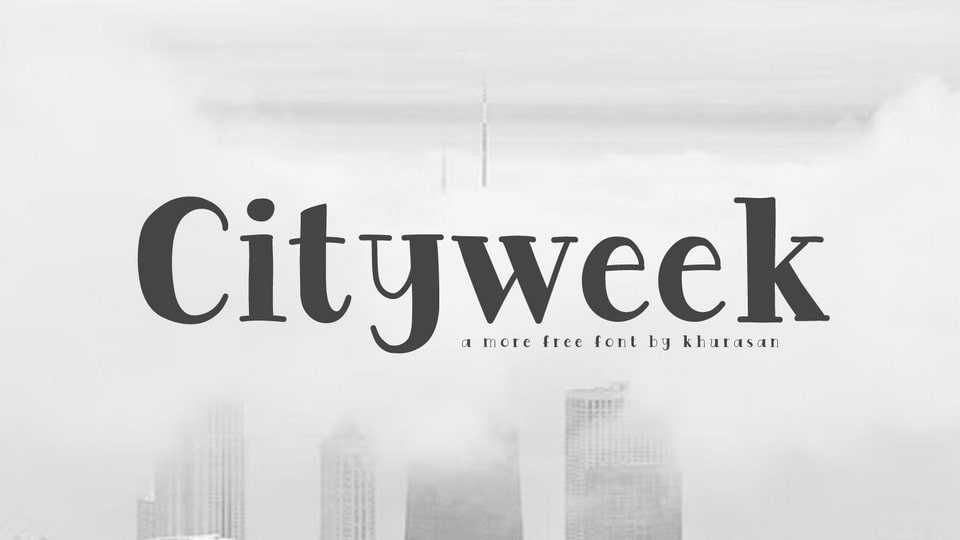
Download Cityweek font, a hand-drawn serif typeface that celebrates the art of contrast and creative expression. Each letter is a testament to the marriage of precise serifs and expressive strokes, resulting in a font that feels both timeless and distinctly crafted by hand.